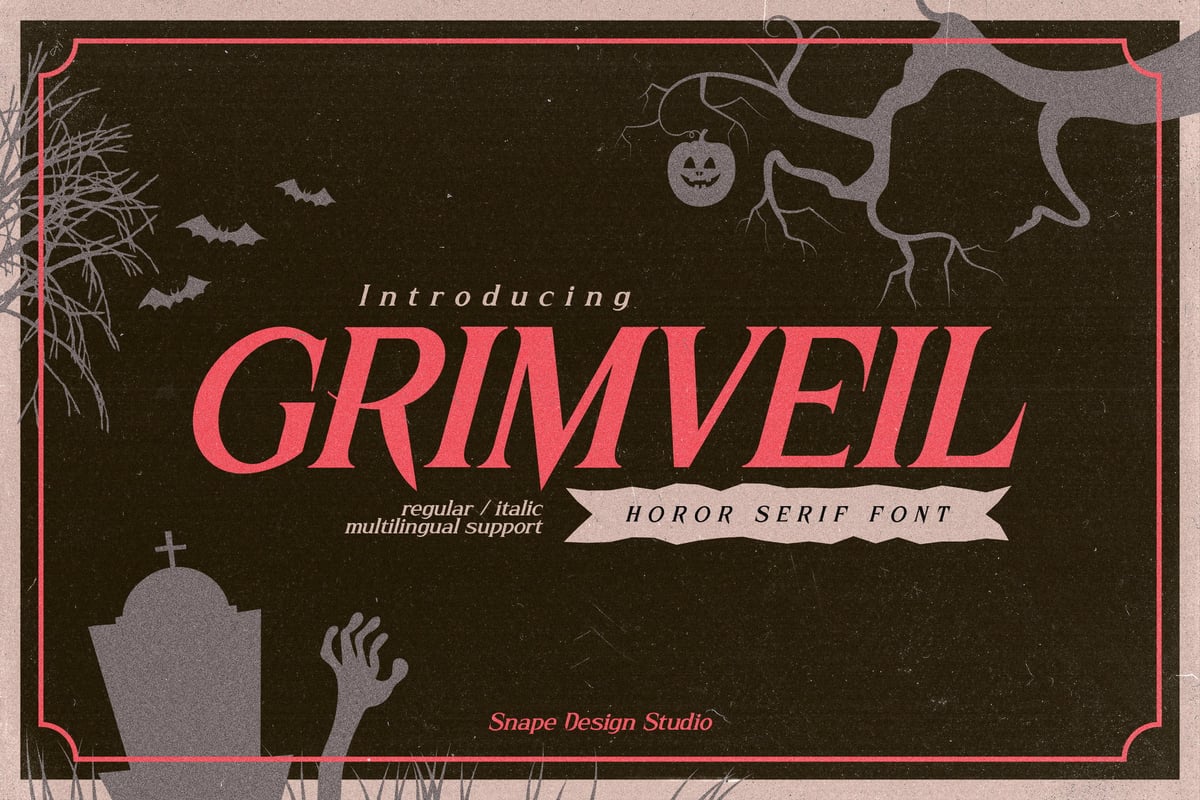
Grimveil - Horror Serif Font
Unleash spine-chilling elegance with Grimveil, the gothic serif font that masterfully blends sophistication with sinister horror. This haunting typeface captures the essence of horror, mystery, and dark elegance through sharp, dramatic letterforms that command attention. Grimveil's unique balance of gothic sophistication and terrifying undertones makes it an exceptional choice for designers seeking to create visuals that are both striking and genuinely unsettling. The font's carefully crafted sh...